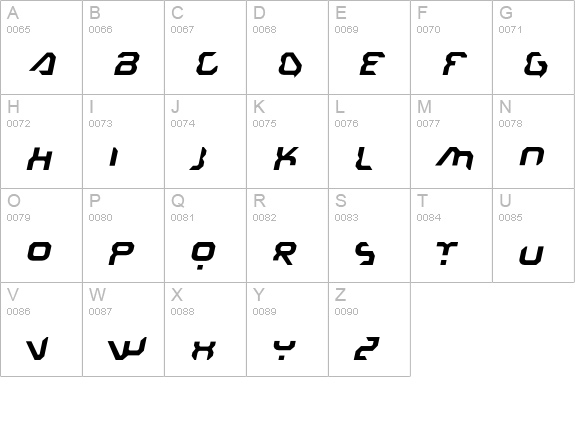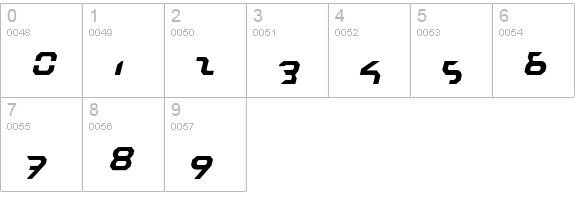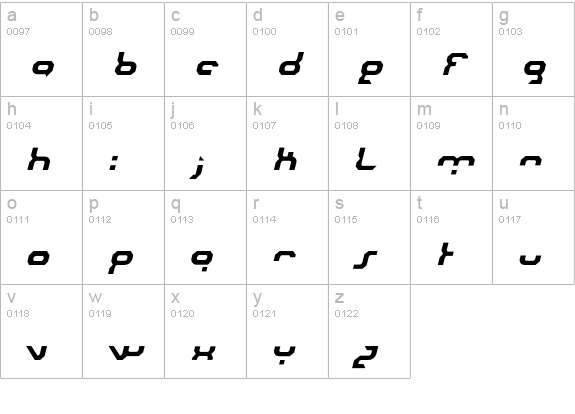
Urbanite-Oblique Font Details
Urbanite-Oblique is a distinctive, italic variant in the Urbanite typeface family \xE2\x80\x94 well suited to design and typography projects.
Introducing Urbanite-Oblique, a captivating font that effortlessly combines urban sophistication with a touch of obliqueness. This versatile typeface is designed to add a modern and contemporary flair to any design project, making it the perfect choice for those seeking a unique and edgy aesthetic. With its sleek and slanted letterforms, Urbanite-Oblique exudes a sense of dynamism and movement, capturing the essence of an urban landscape in motion. Its stylishly tilted angles create a sense of visual interest, drawing the eye and commanding attention in any layout. What sets Urbanite-Oblique apart is not only its striking design, but also its accessibility. This font is freely available to download at FontsMarket.com, ensuring that designers and creatives have easy access to this exceptional typeface. Whether you're a professional graphic designer, a seasoned typographer, or even a hobbyist looking to enhance your projects, Urbanite-Oblique offers a high-quality and stylish solution at no cost. The clean lines and sharp angles of Urbanite-Oblique make it a versatile choice for a wide range of applications. From logo designs to website headers, from posters to packaging, this font effortlessly adds a touch of modernity and urban chic to any project. Its distinct oblique style allows for endless creative possibilities, enabling designers to experiment with different angles and perspectives to create visually captivating compositions. Urbanite-Oblique's character set includes uppercase and lowercase letters, numerals, punctuation marks, and a variety of special characters, ensuring that it is suitable for use in multiple languages and can be adapted to suit various design needs. So, whether you're working on a cutting-edge branding project, a trendy fashion campaign, or a dynamic website, Urbanite-Oblique is the perfect choice to elevate your design to new heights. Download this exceptional font for free at FontsMarket.com and unlock the potential to create stunning visuals that capture the essence of urban sophistication.